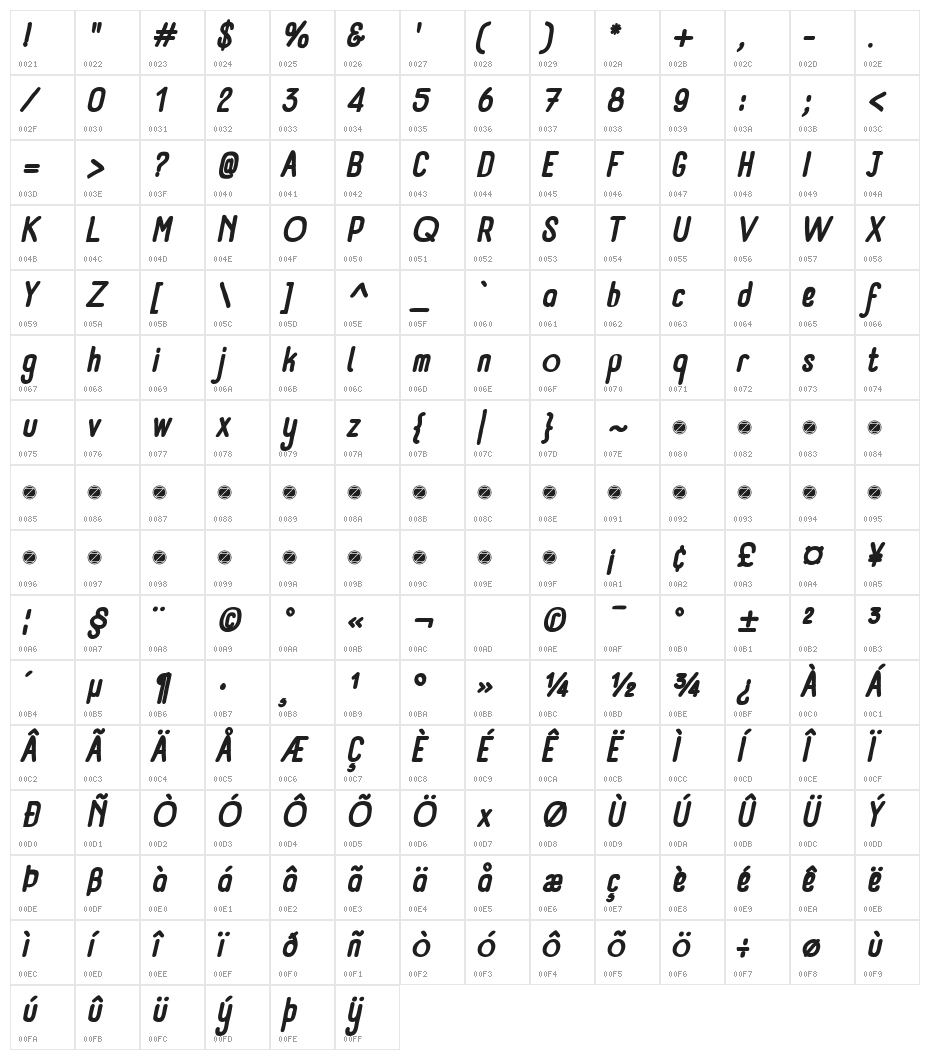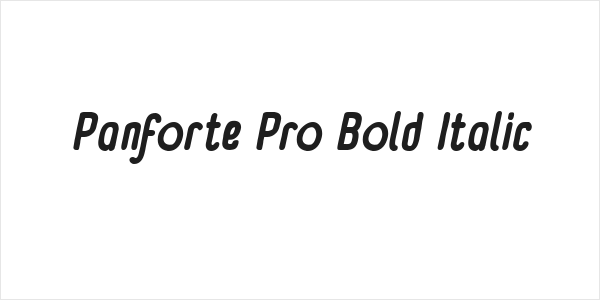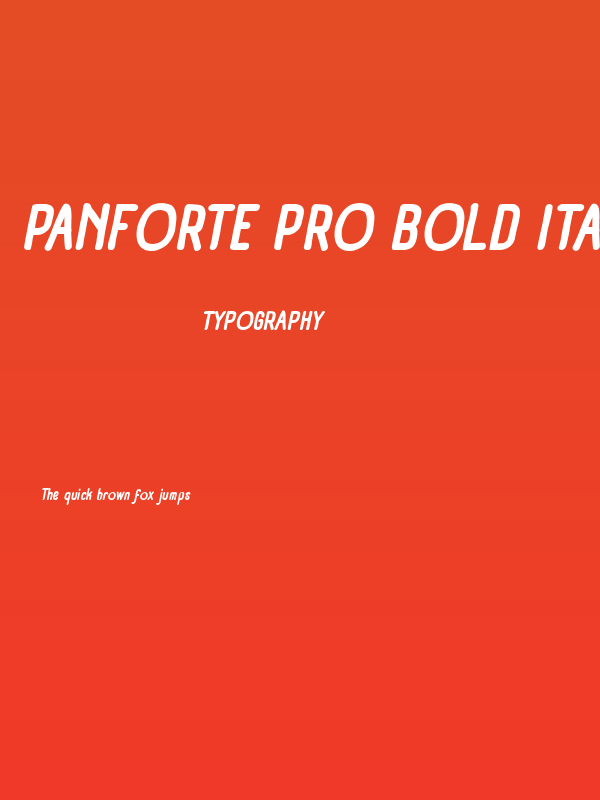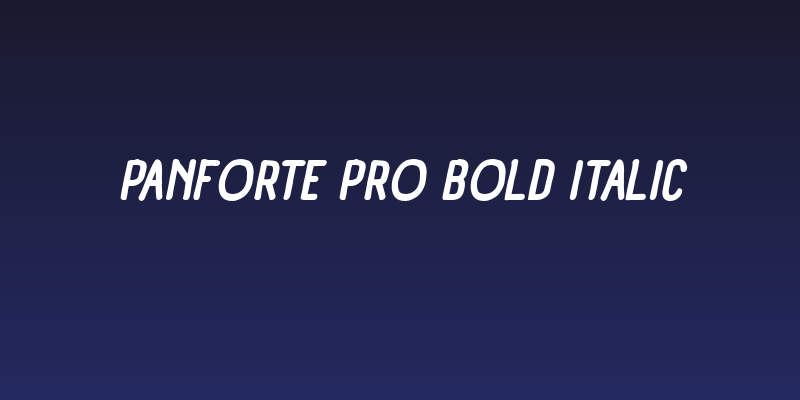
Panforte Pro Bold Italic Font
Panforte Pro Bold Italic Description
This font features a bold and italic style that exudes a modern and dynamic feel. The characters are slightly condensed, giving a compact appearance that enhances readability while maintaining a stylish flair. The strokes are consistent in thickness, providing a medium contrast that balances between elegance and boldness. The rounded edges and smooth curves add a touch of softness, making it suitable for a variety of design contexts. The numerals and special characters are crafted with the same attention to detail, ensuring uniformity across all glyphs. This font is versatile, offering a contemporary look that can be adapted for both digital and print media.
| Proposed Projects | Ideal for branding, advertising, headlines, and digital media projects that require a bold and modern aesthetic. |